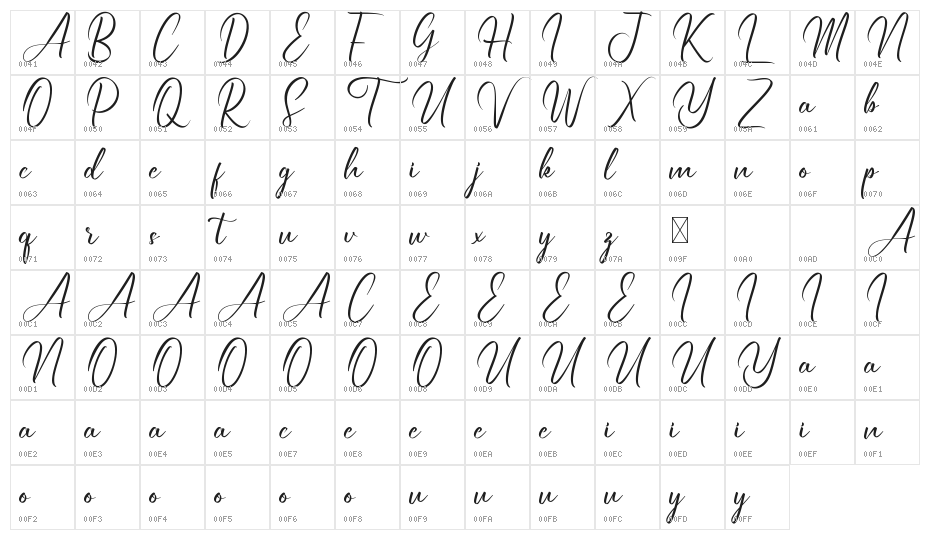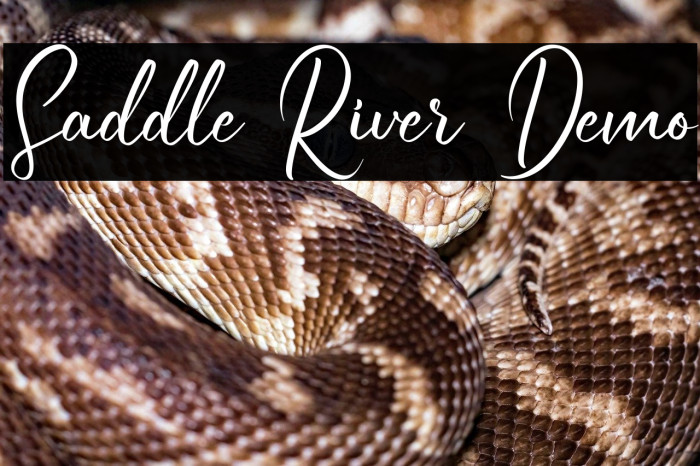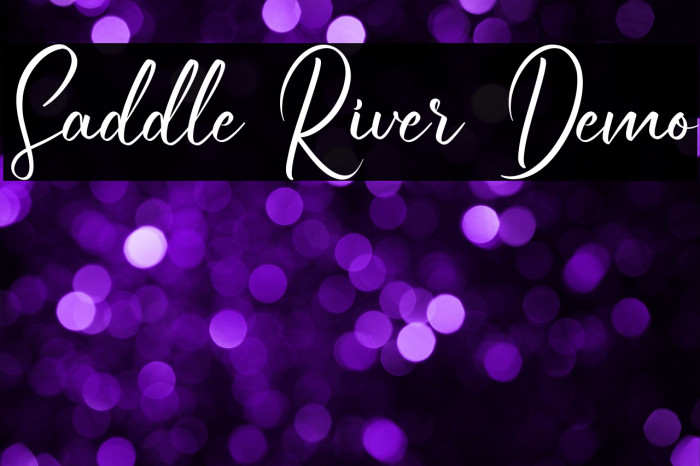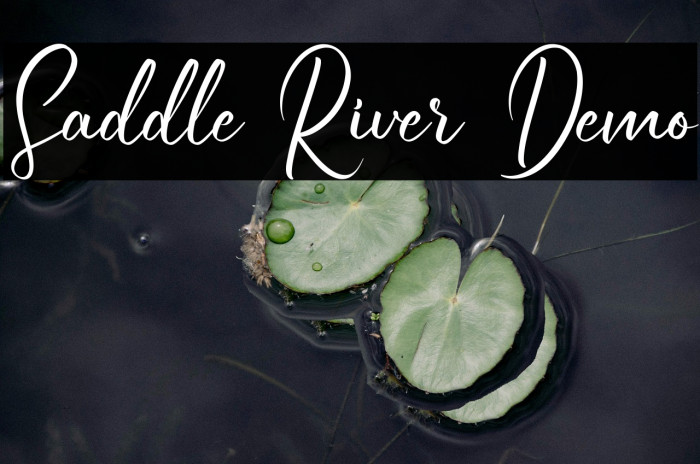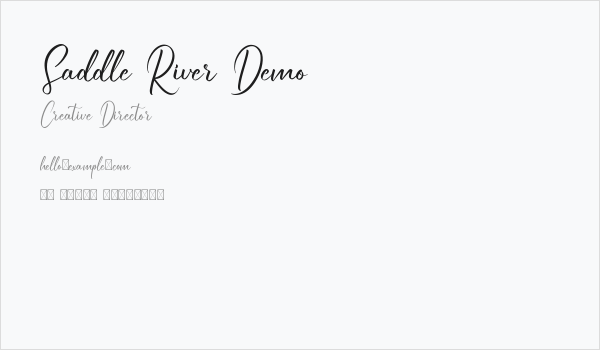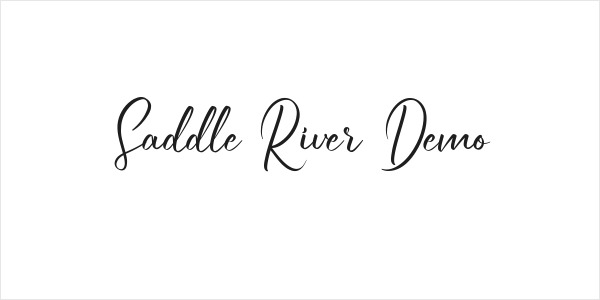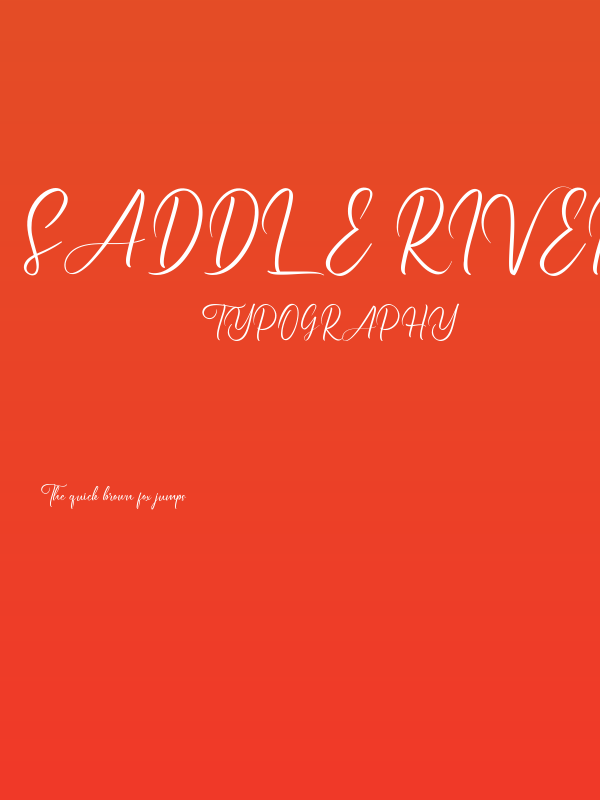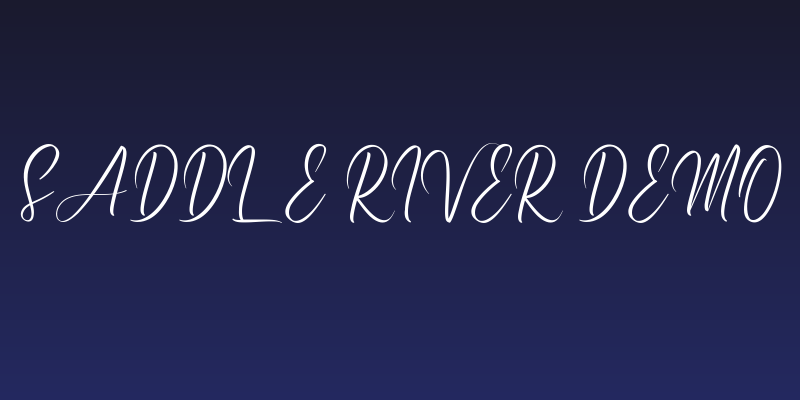
Saddle River Demo Font
Saddle River Demo Description
This elegant script font features flowing, cursive letterforms that exude a sense of sophistication and grace. The uppercase letters are tall and slender with delicate loops and swashes, while the lowercase letters maintain a consistent fluidity, enhancing the overall harmony of the typeface. The font's design is characterized by its smooth, continuous strokes and subtle variations in line thickness, creating a dynamic yet balanced appearance. It is well-suited for projects that require a touch of elegance and refinement, such as invitations, branding, and editorial design.
| Overall Style | Elegant, Sophisticated |
| Use Case | Invitations, Branding, Editorial Design |
| Proposed Projects | Ideal for wedding invitations, elegant branding, editorial design, and luxury product packaging. |